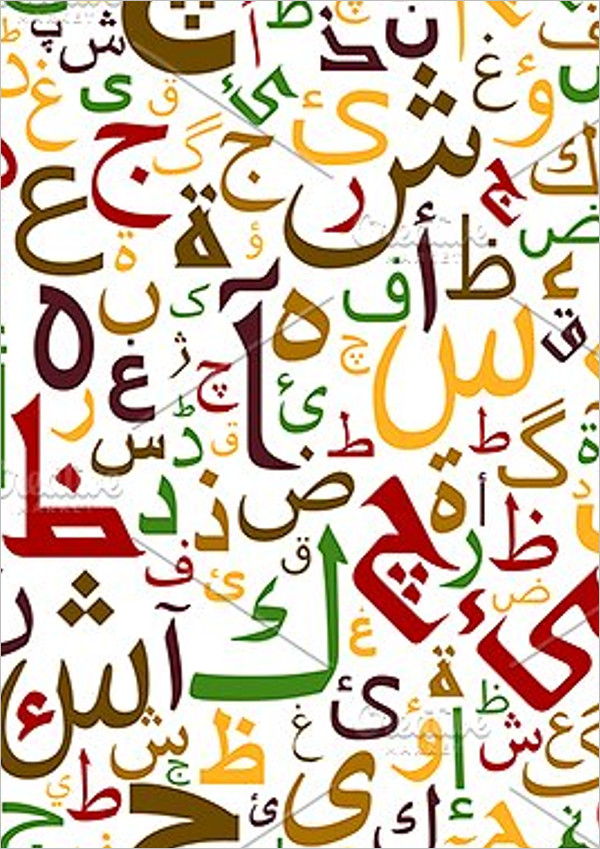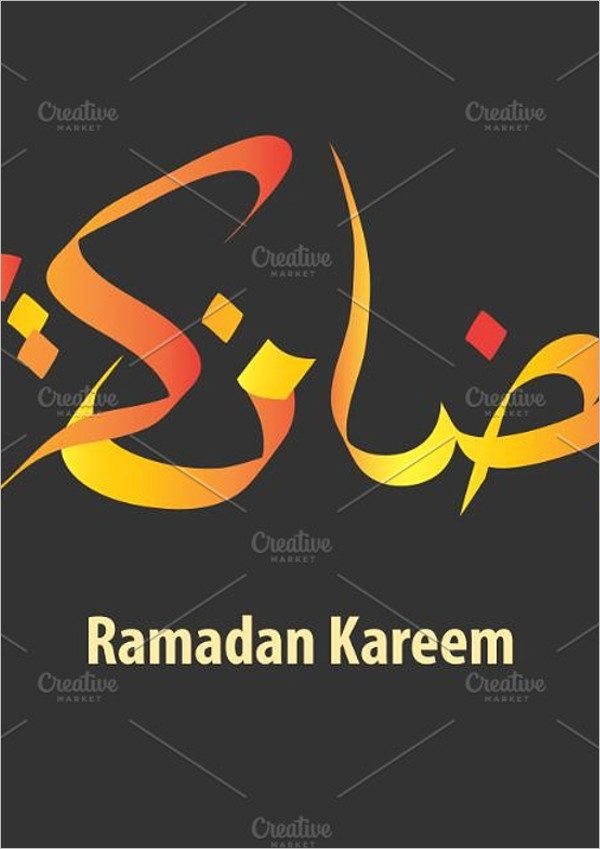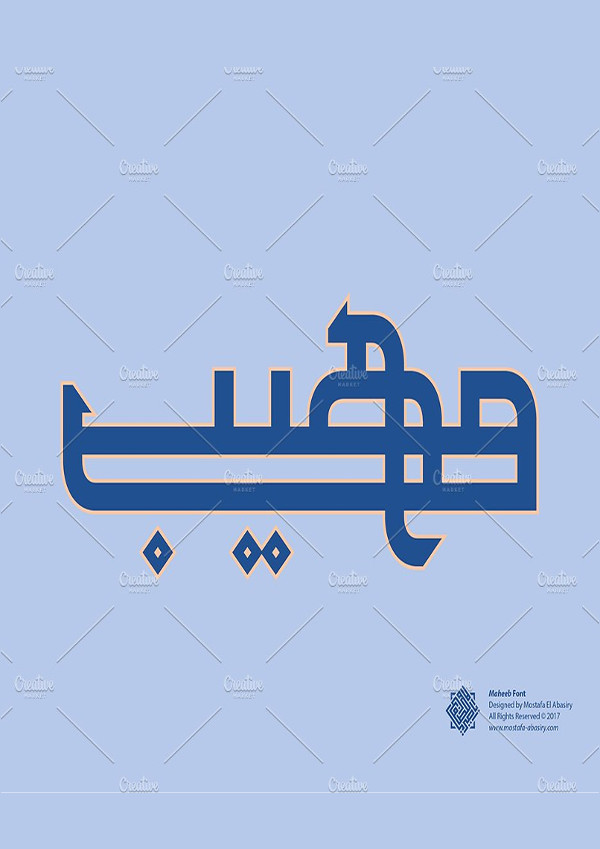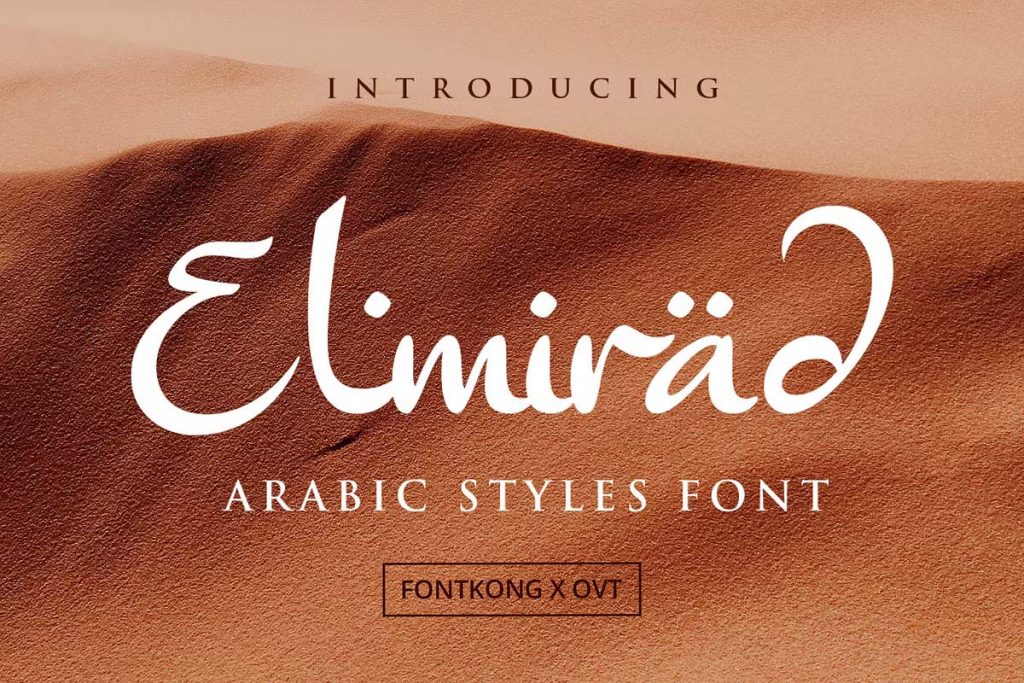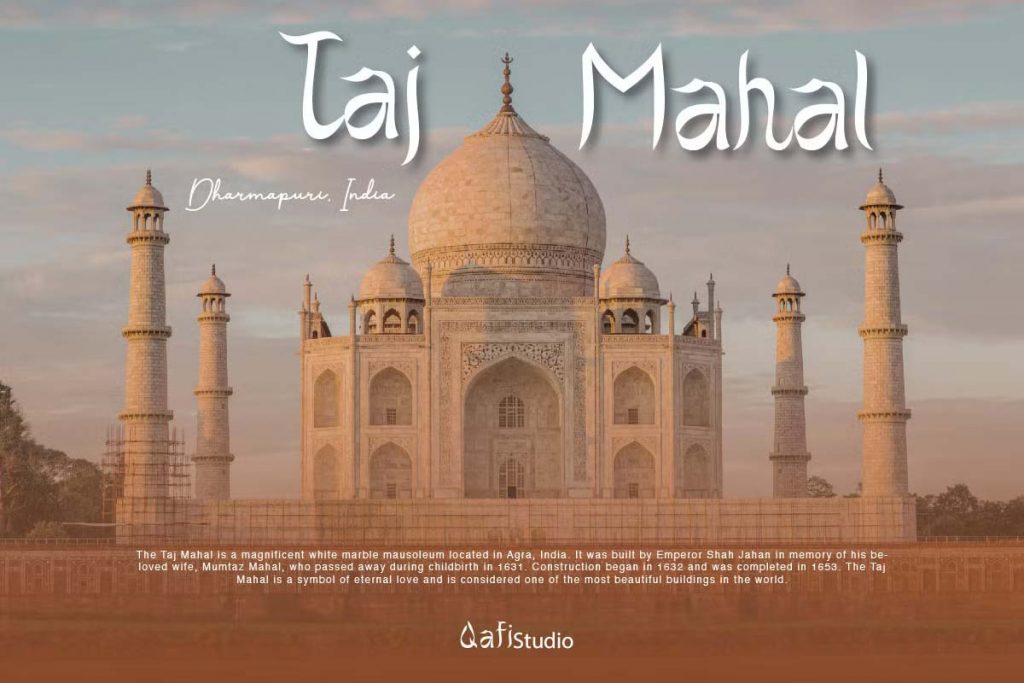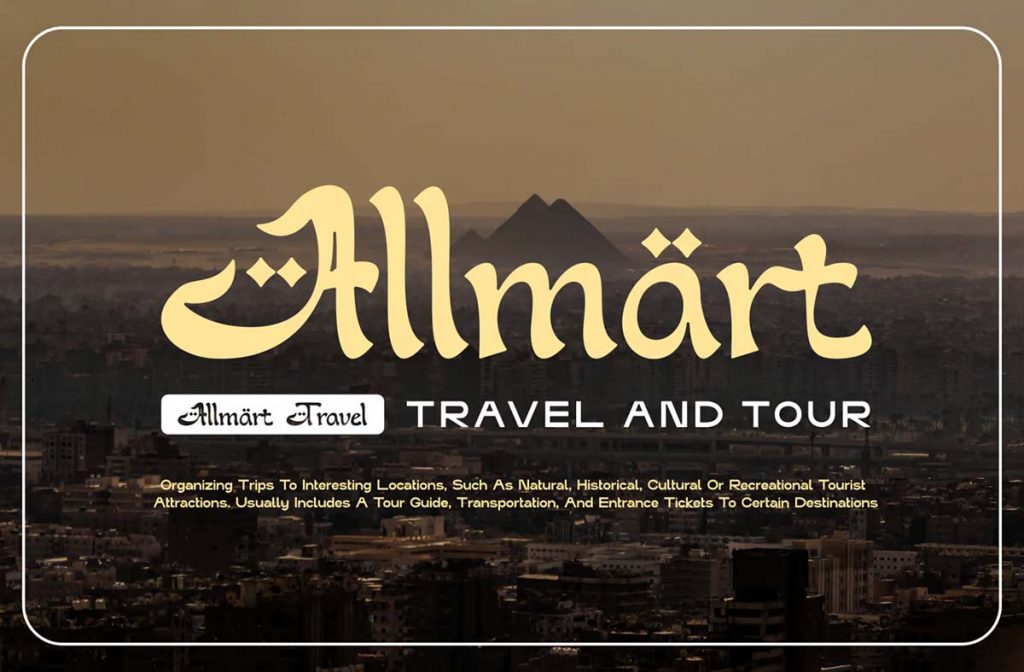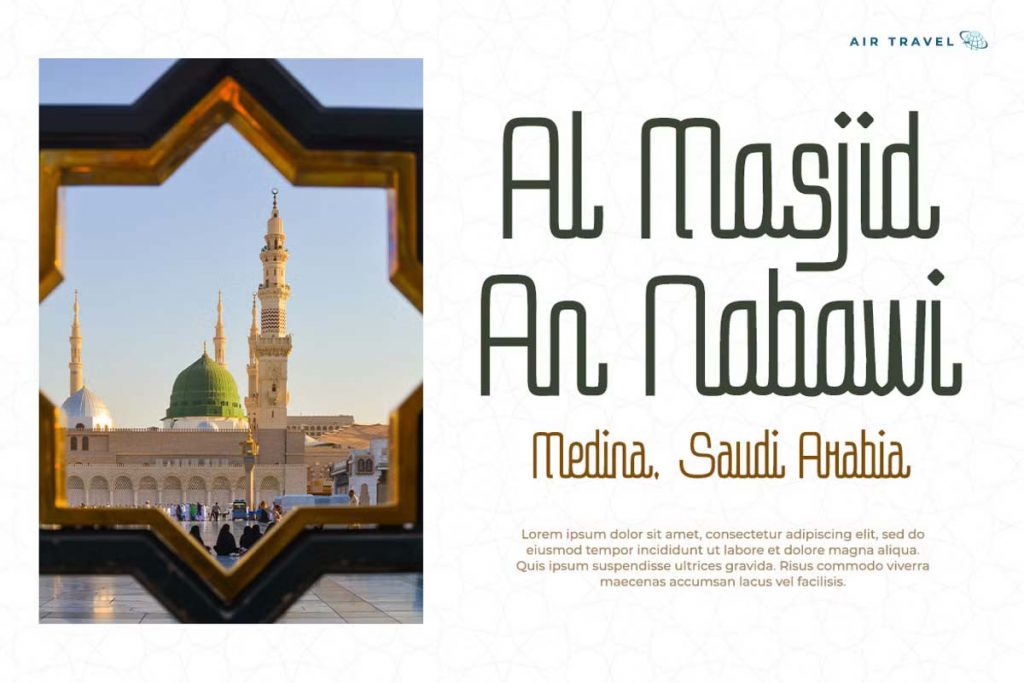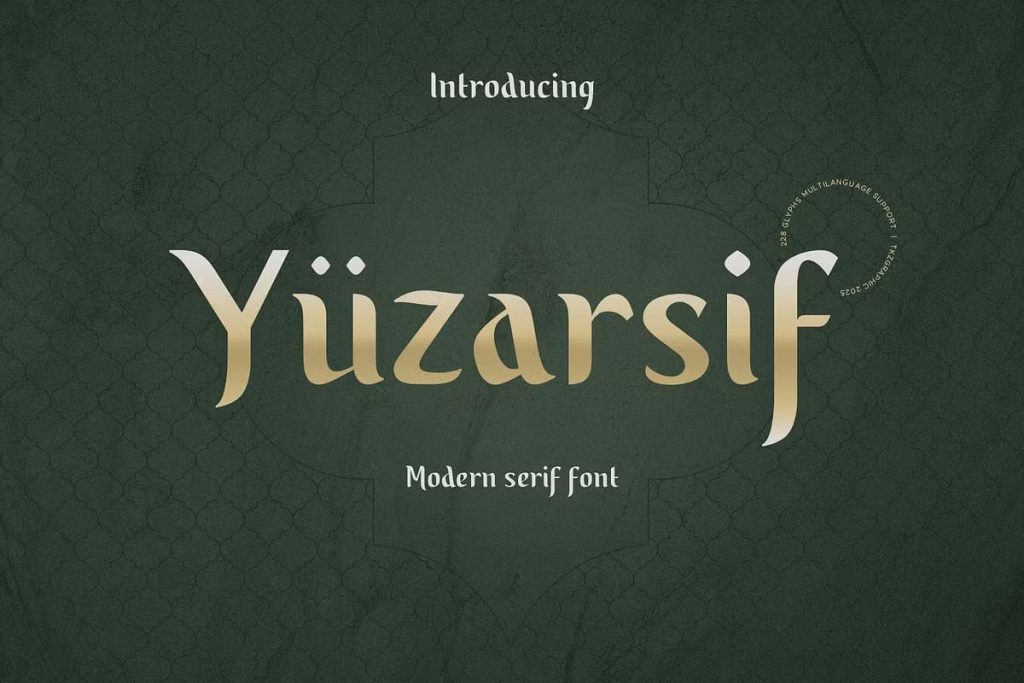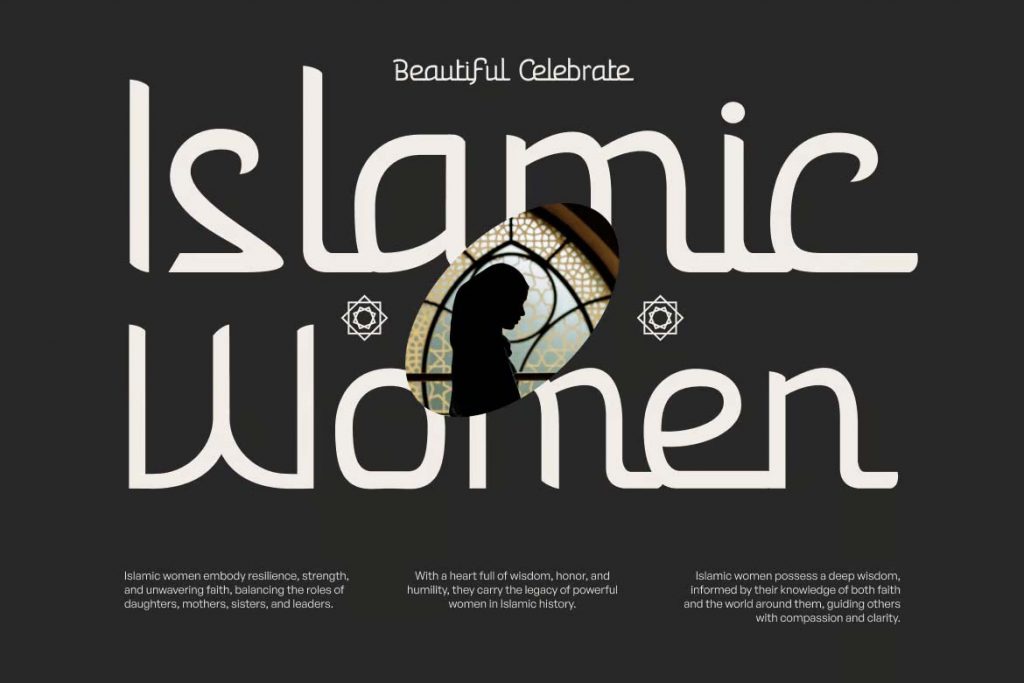
Arabic Calligraphy Fonts Free is very much in demand nowadays due to their artistic looks and beautiful designing fonts. They are often used to design websites due to their wide variety Of font styles. Any other language hardly has so many font styles so Arabic Calligraphy Fonts have achieved much popularity and are considered much superior in this case. This Free Exclusive Fonts style has remained in much demand from the past few years and is benefitting the designers. Designers have also received a new and much interesting concentration to carry on their researches and experiments to bring about some changes in the world of designs.
Modern Arabic Font Family
Elegant Arabic Display Font
Font Arabic Typeface
Arabic Styles Font
Modern Serif Arabic Font
Taraweeh Arabic Font
Sleek Modern Arabic Font
Ramadaniya Arabic Font
Arabic Font Style
Designers all over the world are it interior, outfit or anything else, are experimenting with these Arabic Calligraphy Fonts for quite a long time now. They are bringing new changes which are increasing the demand for Arabic Calligraphy. Such as the interior designers are trying Arabic font styles on the walls or are framing some Arabic quotes written in a good font style as photographs which are catchy to the eyes and also gives a different look to the room.
Recently, many architectures and historians are also taking great interest in these kinds of fonts. As this type of Fancy Fonts Design Ideas has a long history, they are often found in the tombs and in various old villas or palaces or even in coins. So these types of Arabic Calligraphy fonts help them to carry on with their further studies and researchers involved in this subject.
Language Kaleem Arabic Calligraphy Fonts
Language Kaleem Arabic Font
Maheeb Arabic Font
Arabic Font Image
Sahan Font Arabic
Sahan Font Arabic
Ostouri Arabic Font Image
Face to Face Handrawn Font bundle Image
Main Calligraphy Arabic Font
Arabic Language Typography Font
Creative Arabic Calligraphy Font
Premium Calligraphy Font
Honesty Calligraphy Font
Custom Alhambra Font
Responsive Arabic Font
Multi-Artistic Arabic Calligraphy Font
Ultimate Khidmat Font
Latest Font Arabic Calligraphy
New Arabic Calligraphy Font
Main Multi-Nurkholis Arabic Font
Utilized Alqusair Arabic Font